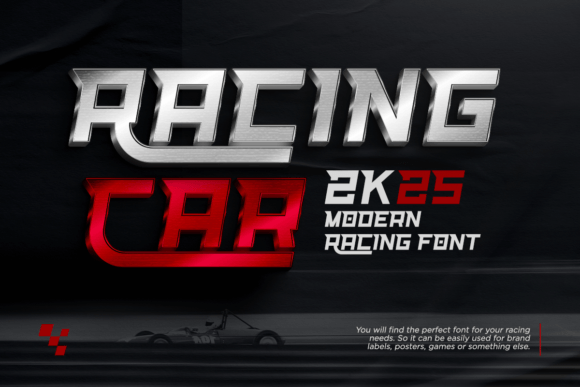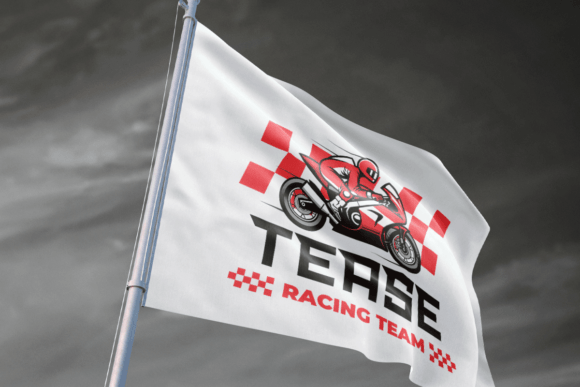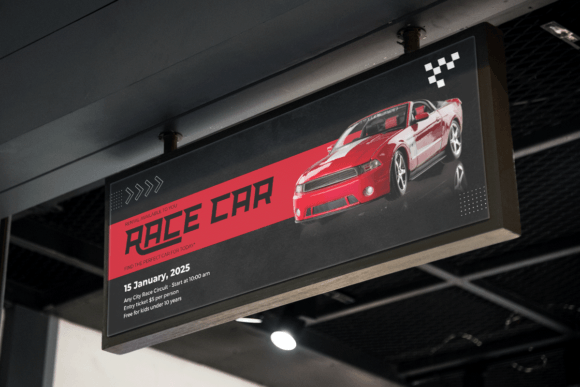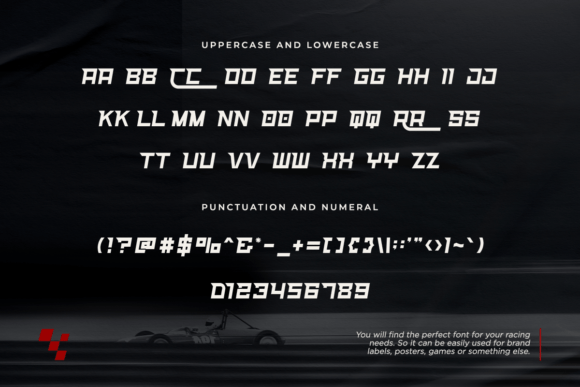
Racing Car Font
About the Racing Car Font
The Racing Car Font is here to transform your projects with its distinctive character and style. Racing Car is a dynamic and bold display font designed to capture the speed, excitement, and intensity of motorsports. With its sleek, angular design and high-octane energy, this font is perfect for any project related to racing, automotive branding, sports events, and high-speed action. Ideal for logos, posters, merchandise, and advertising, Racing Car adds a powerful and adrenaline-pumping vibe to your designs. Whether you’re designing for a racing team, a car show, or creating action-packed graphics, this font will make your work stand out with a thrilling, competitive edge.
Racing Car Font Example